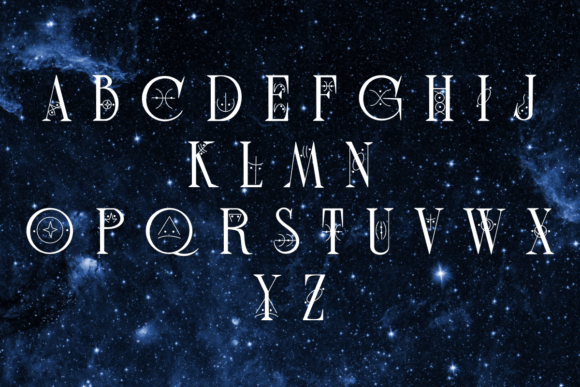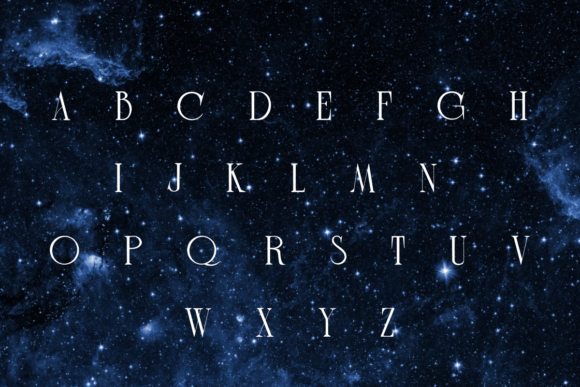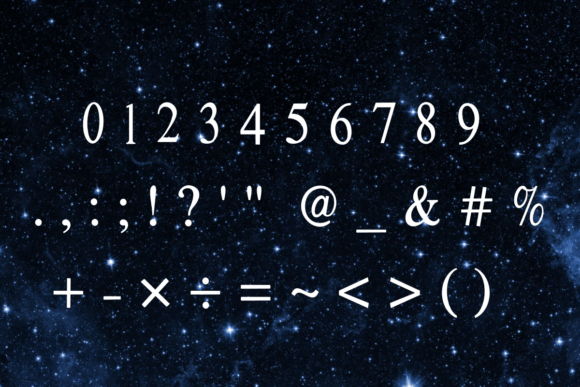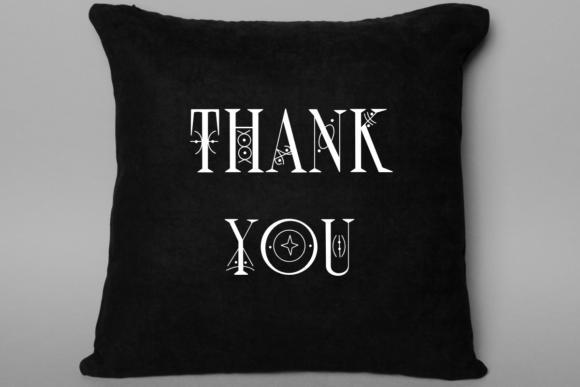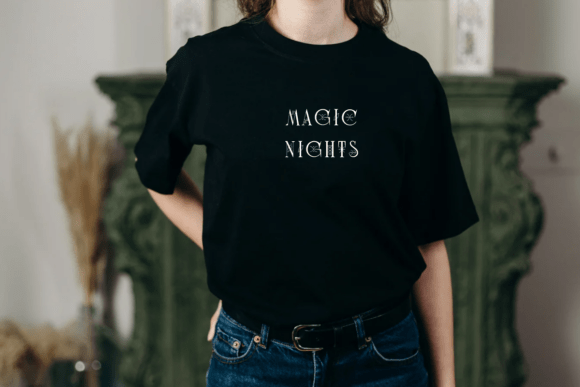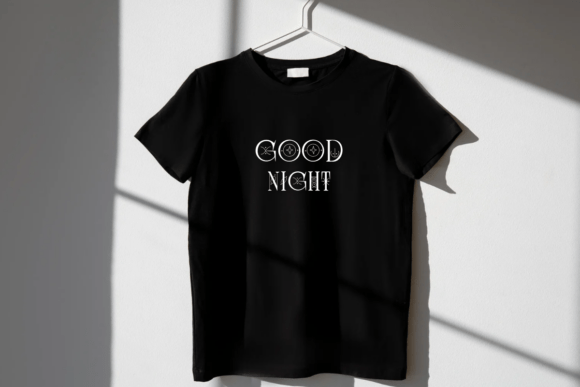
Introduction to Moon Glyphs Font
Have you ever found yourself lost in the night sky, mesmerized by the twinkling stars and the silvery glow of the moon? For many designers, this magical moment is the spark that ignites their creative project. It’s a feeling that can be hard to replicate, but with the right design resource, you can tap into that same sense of wonder and enchantment. That’s where the Moon Glyphs Font comes in – a mystical decorative font that’s sure to transport your designs to a world of magic and mystery.
Whether you’re working on a fantasy-themed project, crafting a book cover, or developing a spiritual brand, the Moon Glyphs Font is the perfect addition to your design arsenal. Its intricate shapes and ethereal style evoke a sense of high-quality craftsmanship, making it a valuable asset for any designer. And the best part? This enchanting typeface is available for free download, ready to be used on a transparent background to add a touch of magic to your designs.
- Unique, hand-drawn design with a touch of mysticism, perfect for a creative project
- Includes a wide range of glyphs, making it suitable for use in various creative contexts, from branding to editorial design
- Designed to be versatile and easy to use, with a simple, yet distinctive aesthetic that’s perfect for adding a touch of elegance to any design
- Unique and elegant design style
Overall, the Moon Glyphs Font is a fantastic addition to any designer’s toolkit. Its elegant design style and high-quality vector files make it perfect for a wide range of creative projects. While it may have some limitations, it’s still a valuable resource for designers looking for a unique and professional font.